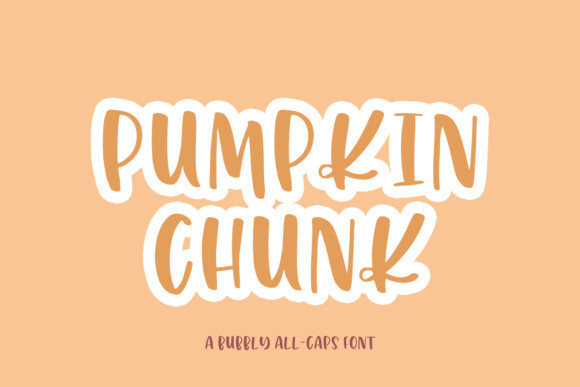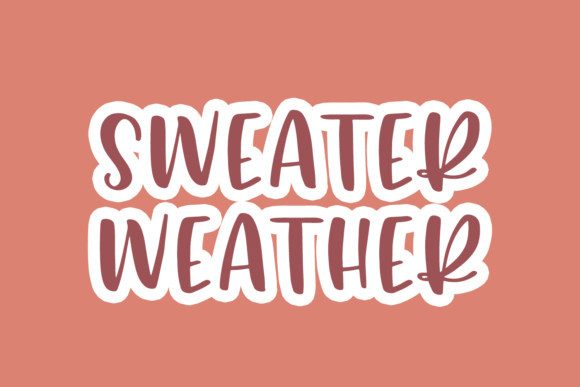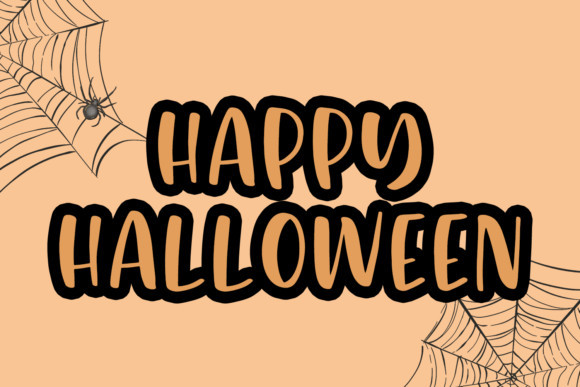
Pumpkin Chunk Font
Pumpkin Chunk is a cute and quirky display font. It will add an incredibly joyful touch to your designs. Add this beautiful display font to each of your creative ideas and notice how it makes them stand out!